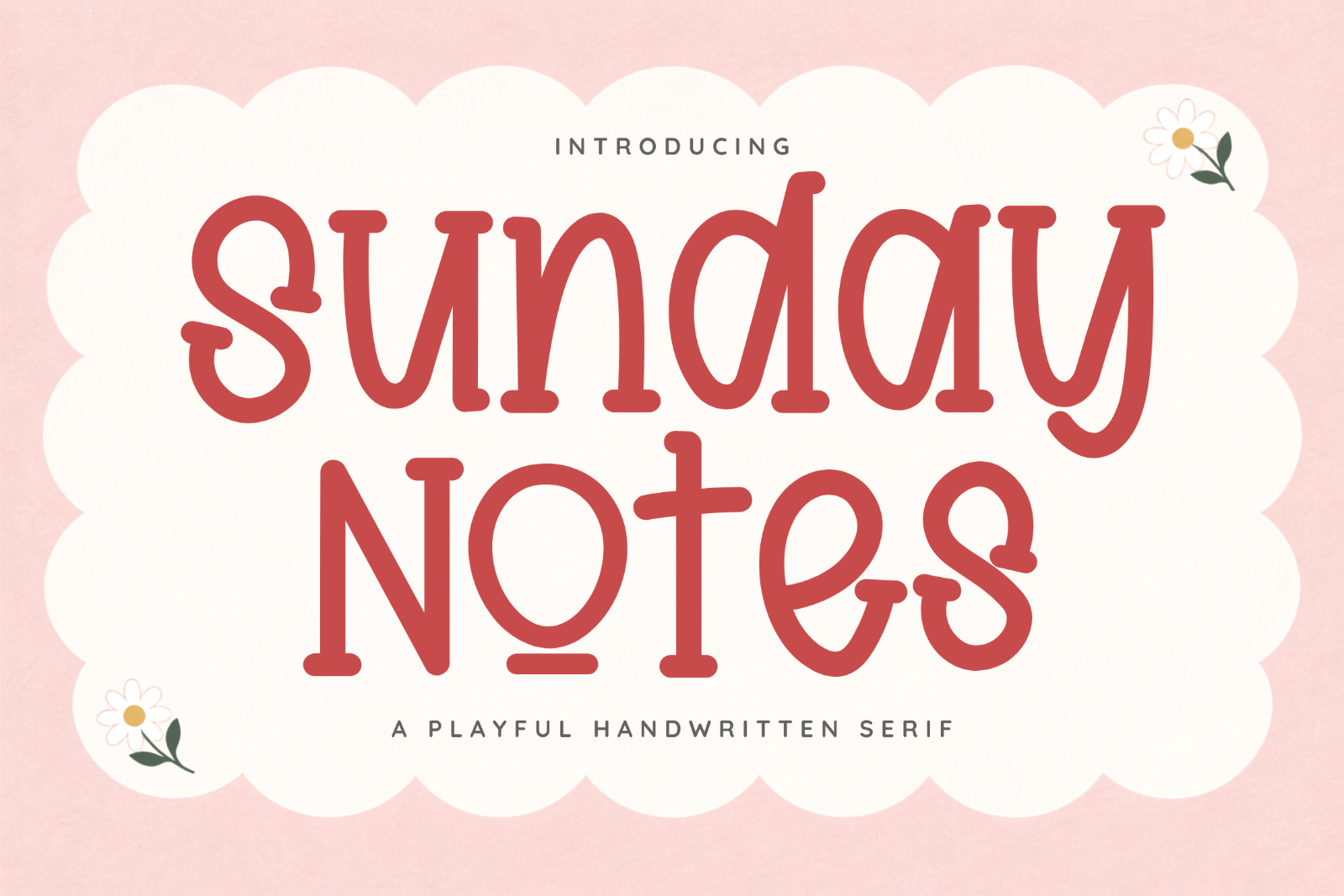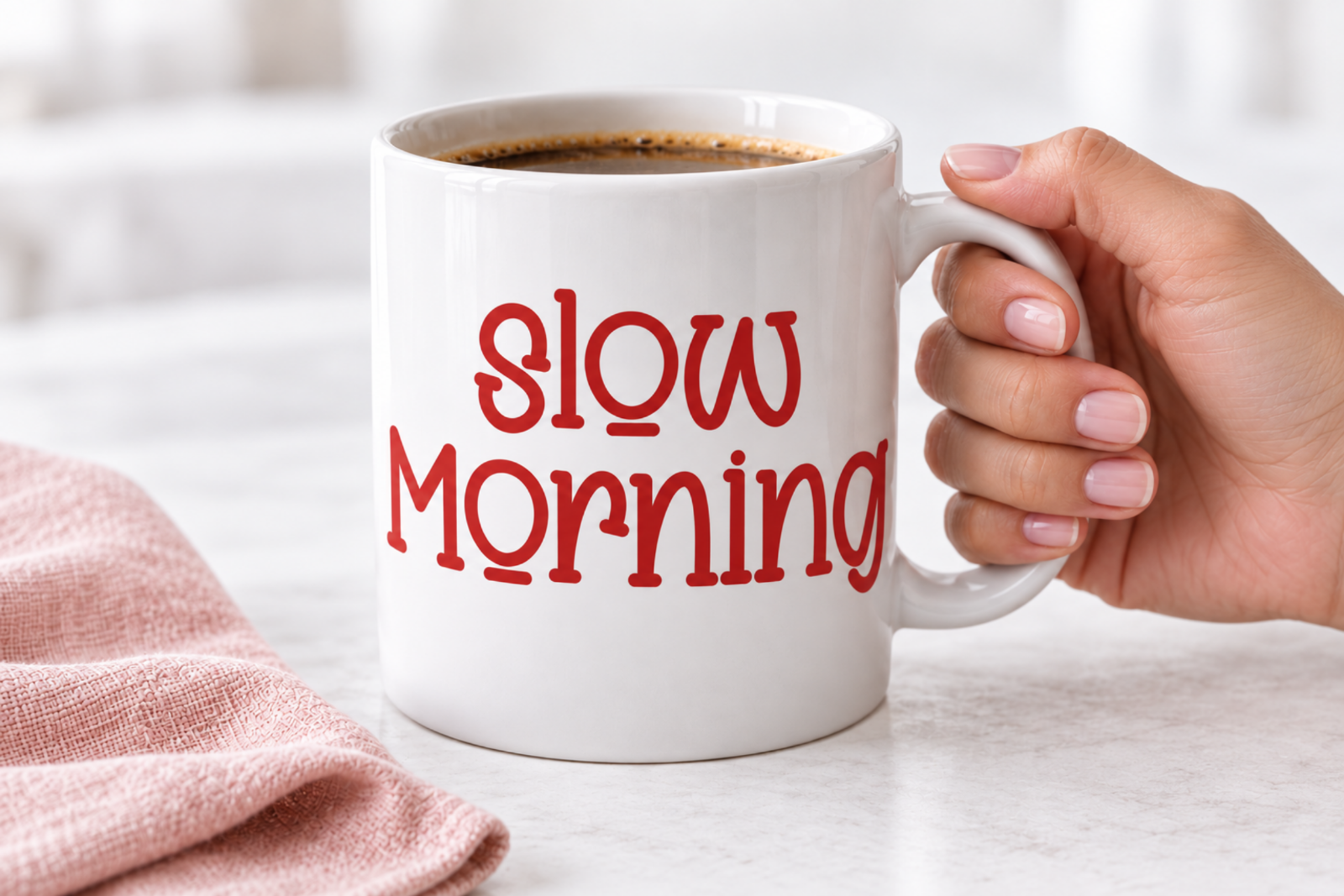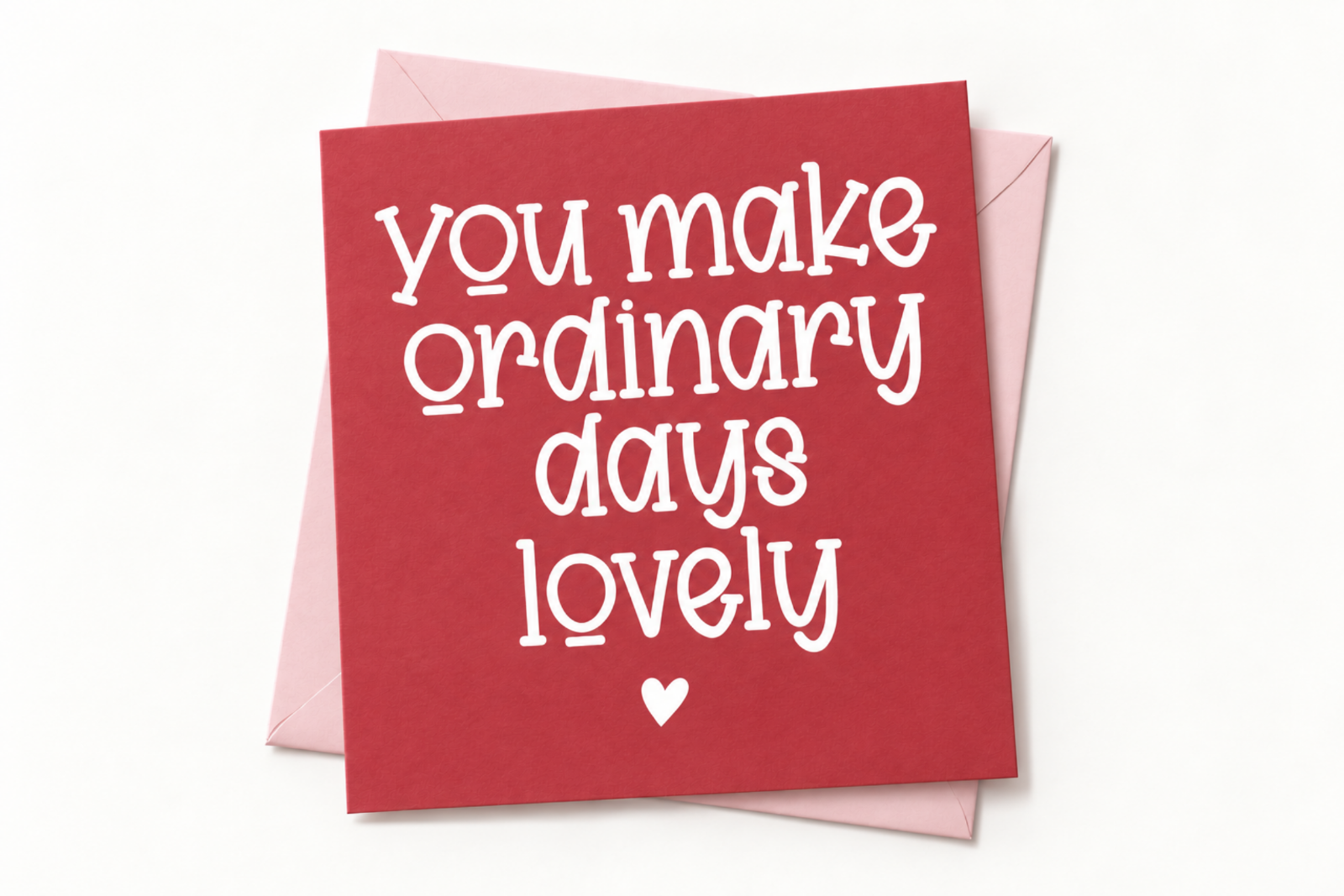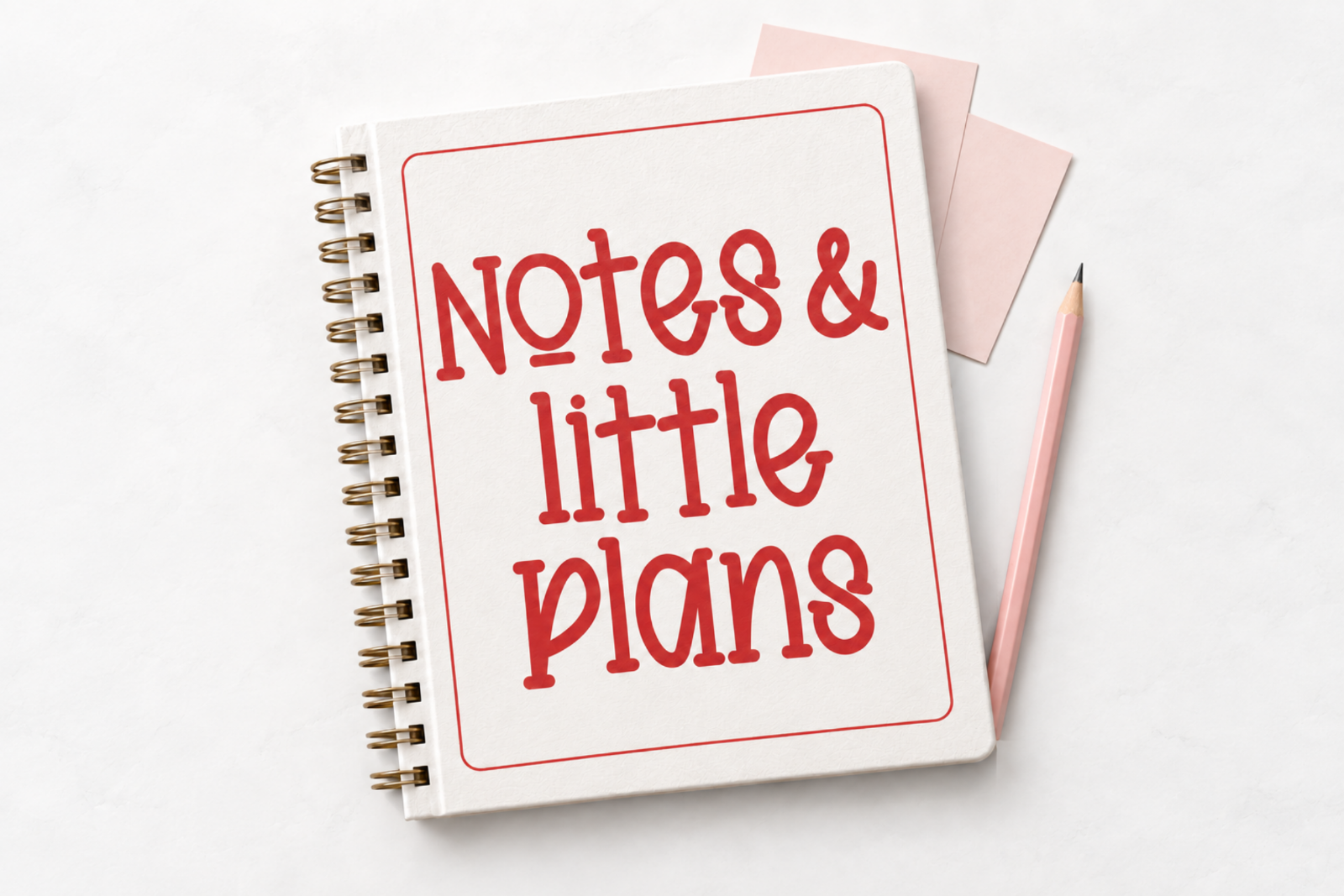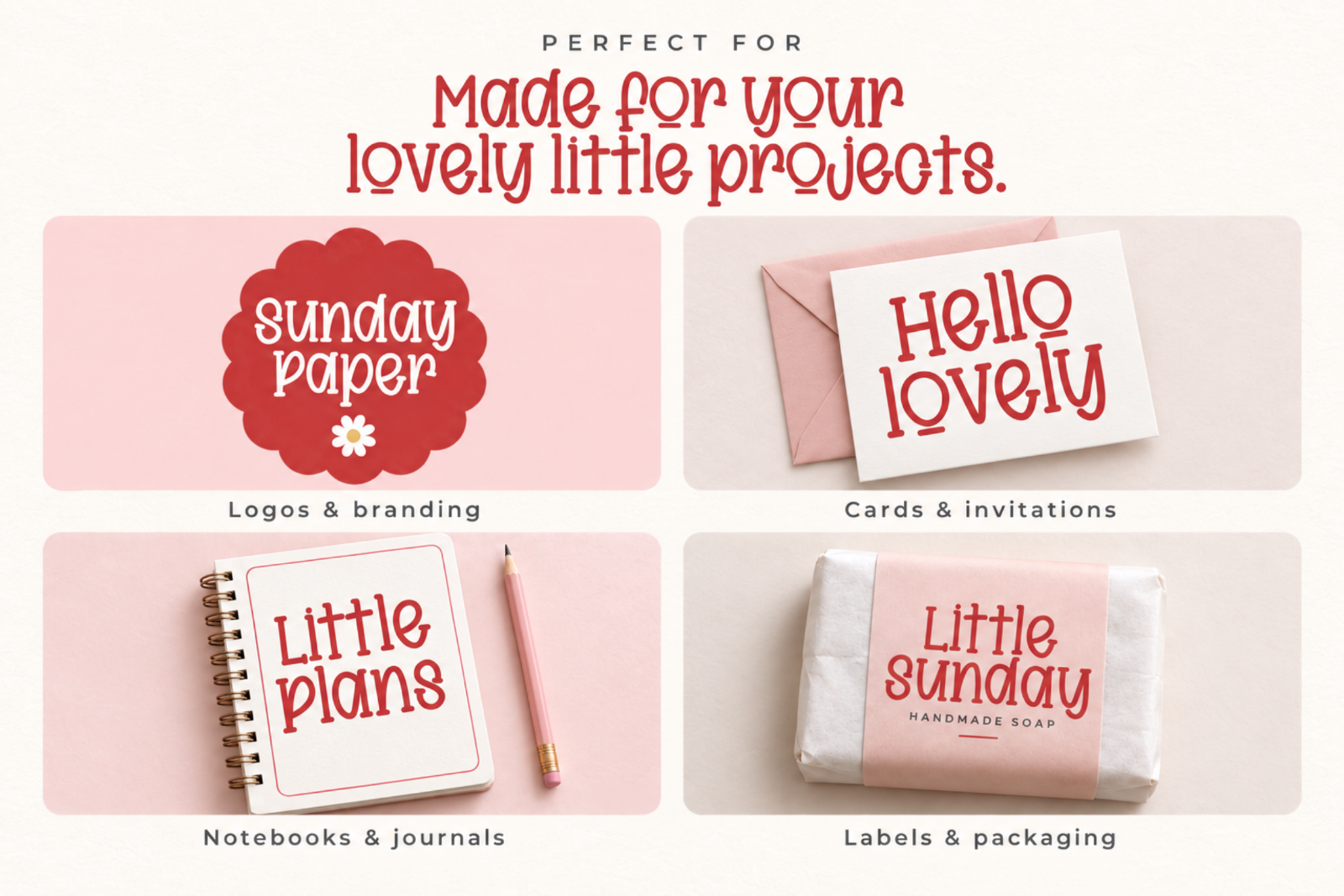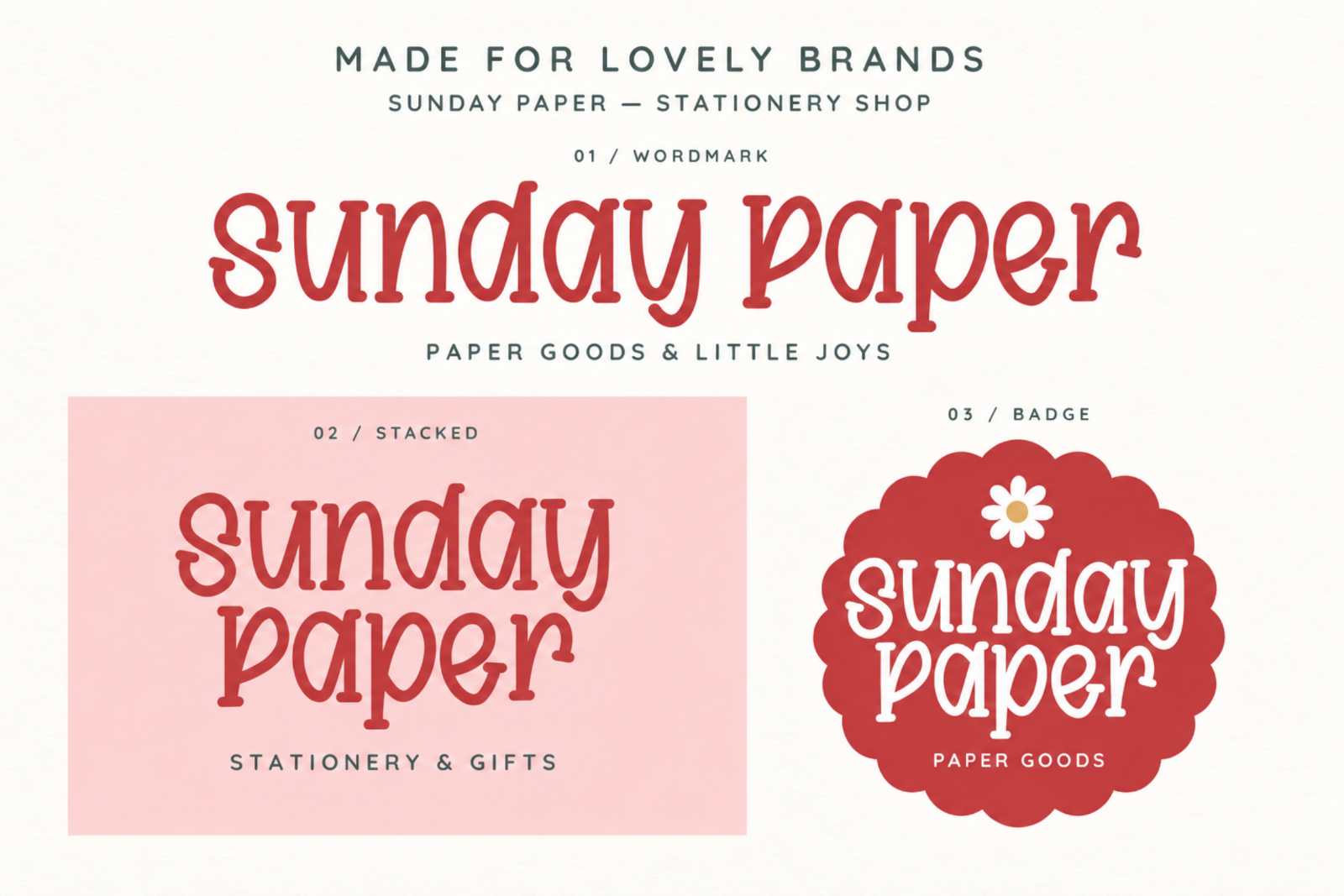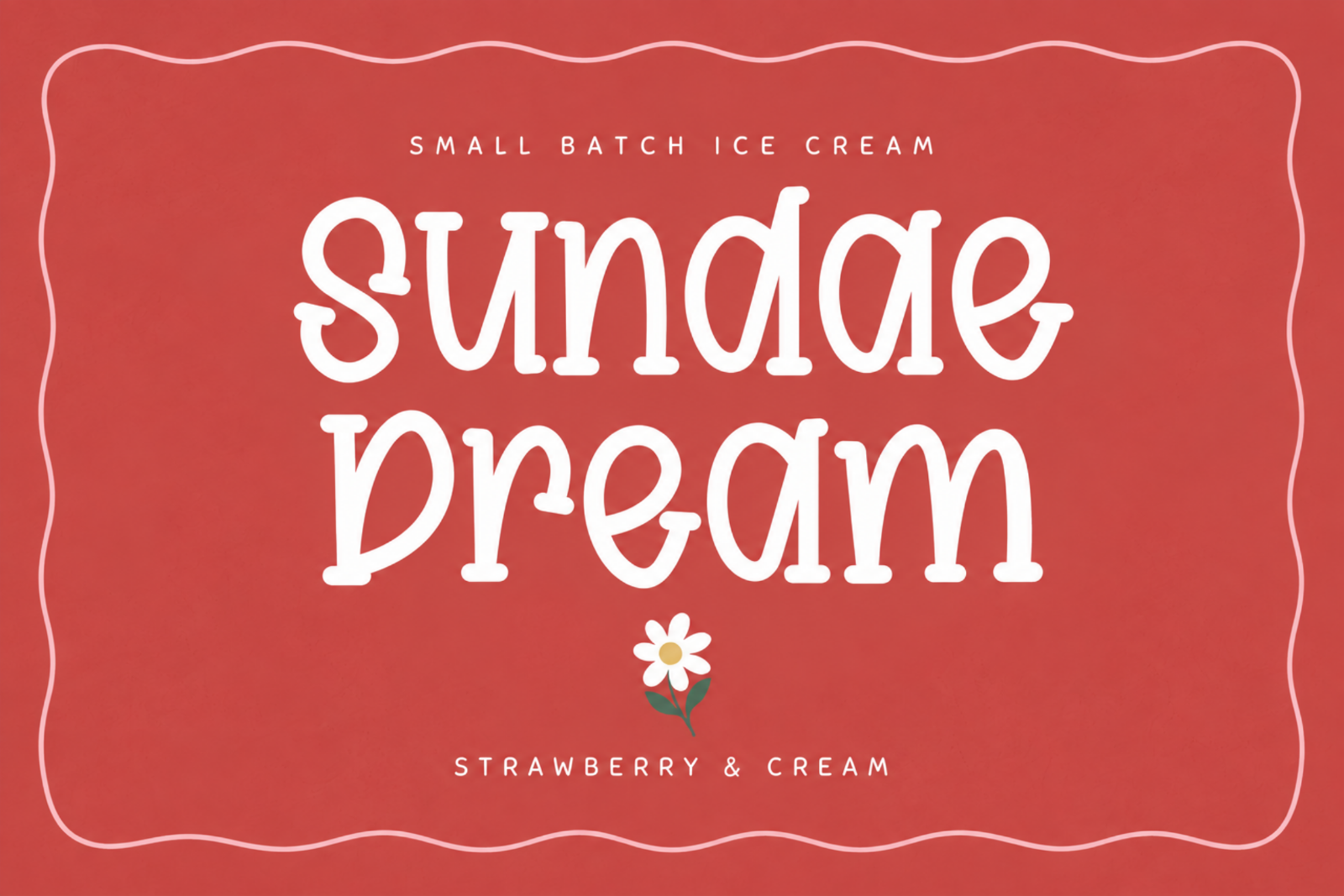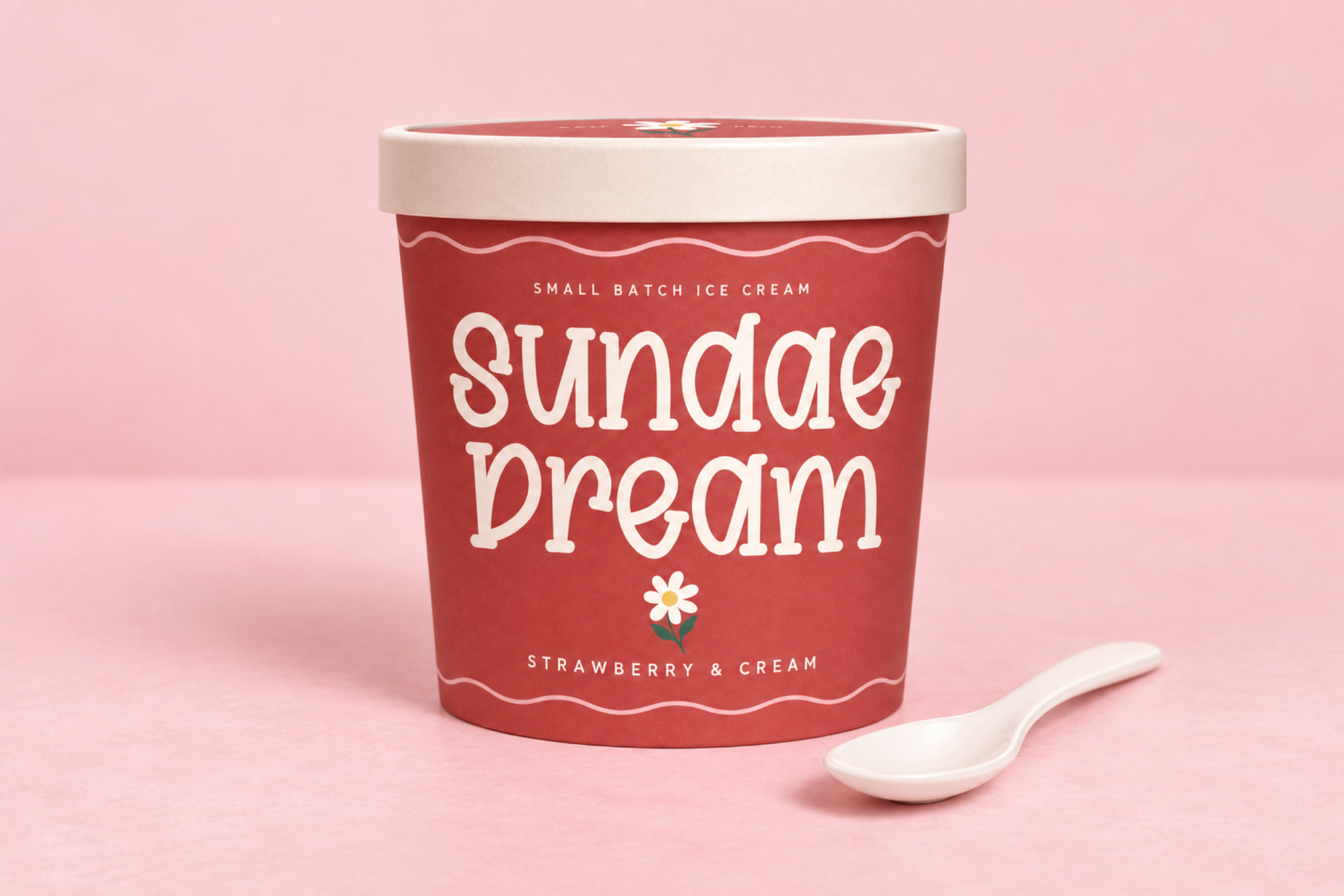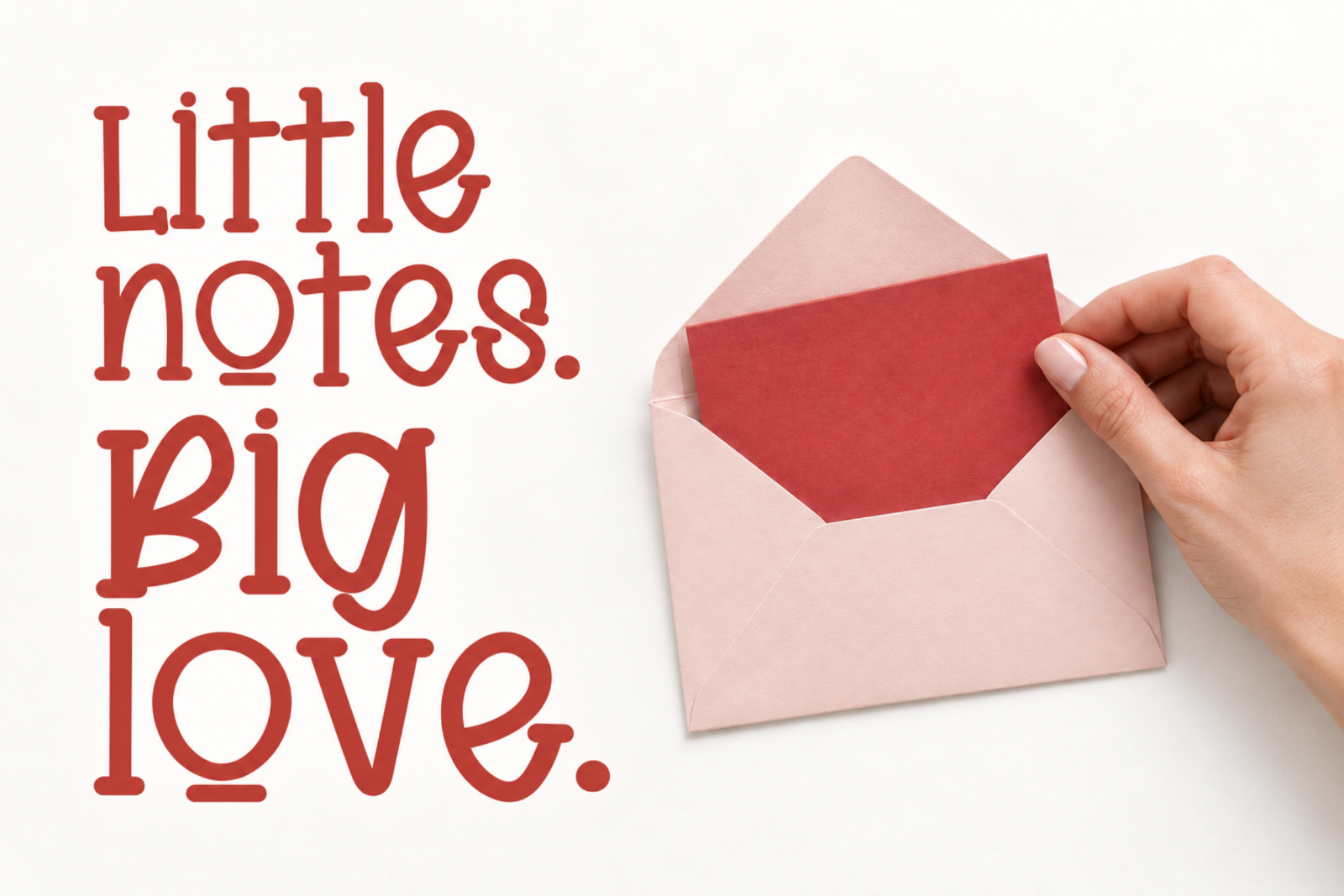
Sunday Notes - A little Sunday charm for your next design.
Sunday Notes is a playful handwritten serif font with rounded serifs, soft curves, and a delightfully irregular rhythm. Its distinctive letterforms bring warmth and personality to boutique branding, packaging, stationery, and expressive headlines.
From a neighborhood café logo to a thoughtful greeting card, Sunday Notes gives everyday words a friendly, handmade feel. Use it large to show off its character, or pair it with a simple sans serif for supporting text.
• Boutique logos and brand identities
• Café, bakery, and artisan packaging
• Product labels and handmade goods
• Greeting cards, invitations, and stationery
• Notebook covers and journals
• Editorial headlines, quote posters, and social graphics
• T-shirt, tote bag, and mug designs
Make time for little things—and give them lovely lettering.